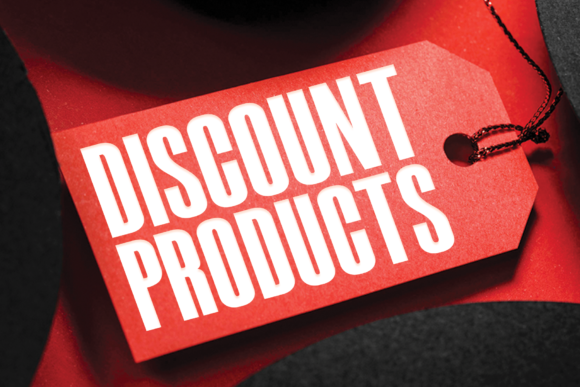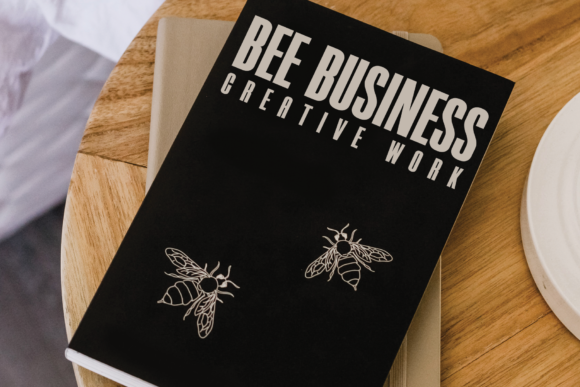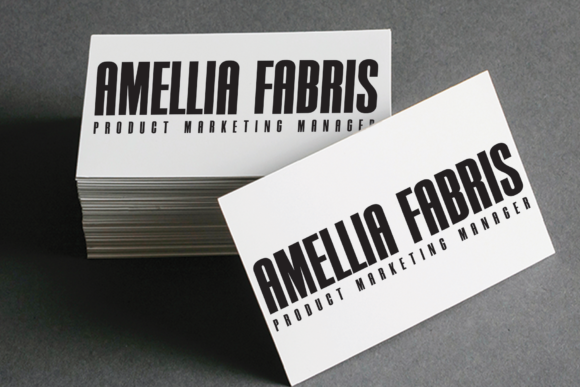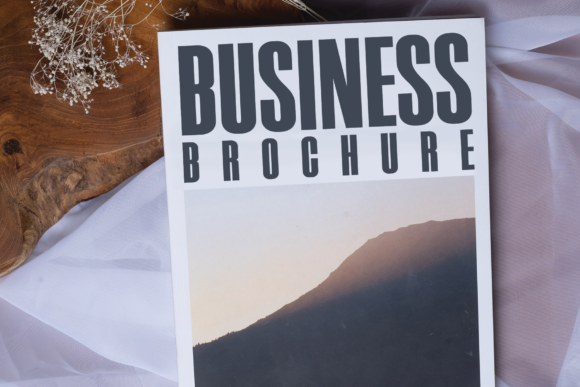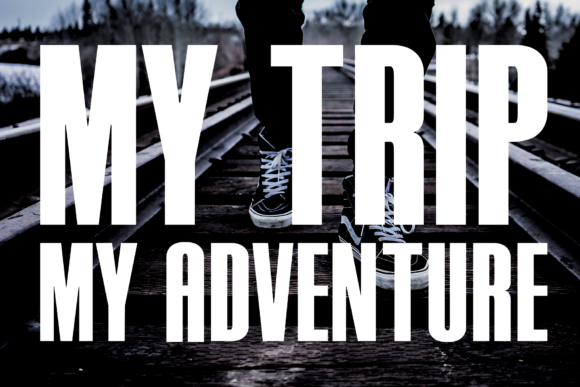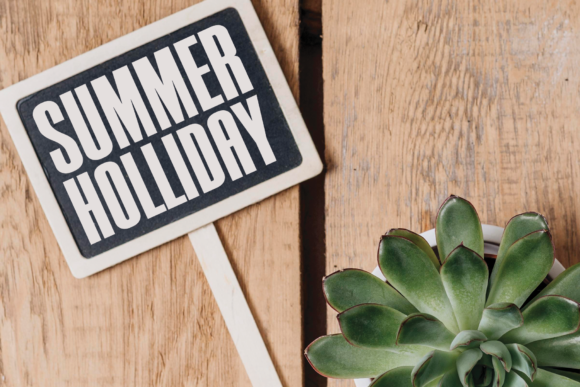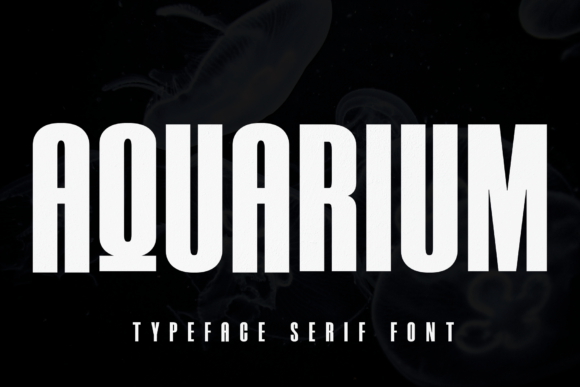
Aquarium Font: A Bold and Simple Display Font for Creative Projects
Aquarium Font is a stunning, bold, and simple display font that has been making waves in the design community. Its chunky lettering and natural aesthetic make it incredibly versatile, allowing it to match each of your creative ideas. Whether you’re a designer, crafter, or DIY enthusiast, Aquarium Font is sure to become a go-to choice for your next project.
What Makes Aquarium Font So Special?
Aquarium Font’s unique charm lies in its bold and chunky lettering style. The font’s natural, effortless look makes it perfect for a wide range of applications, from signage and posters to crafts and DIY projects. The font’s simplicity also ensures that it remains highly legible, even at larger sizes.
Key Features of Aquarium Font
- Bold and Chunky Lettering: Aquarium Font features bold, chunky letters that make a statement.
- Natural Aesthetic: The font’s natural look and feel make it perfect for crafty and DIY projects.
- Highly Versatile: Aquarium Font can be used for a wide range of applications, from signage and posters to crafts and DIY projects.
- Easy to Read: Despite its bold style, Aquarium Font remains highly legible, even at larger sizes.
Uses for Aquarium Font
Aquarium Font’s versatility makes it suitable for a wide range of creative projects. Here are some ideas to get you started:
- Signage and Posters: Use Aquarium Font to create eye-catching signs and posters for events, promotions, or advertising.
- Crafts and DIY Projects: Add a personal touch to your crafty projects, such as scrapbooking, card-making, or woodworking.
- Branding and Packaging: Use Aquarium Font to create bold and eye-catching branding and packaging for your products.
- Digital Art and Graphics: Incorporate Aquarium Font into your digital art and graphics, such as illustrations, animations, or social media graphics.
Tips for Using Aquarium Font
To get the most out of Aquarium Font, here are some tips to keep in mind:
- Experiment with Sizes: Don’t be afraid to experiment with different font sizes to find the perfect balance for your project.
- Pair with Other Fonts: Combine Aquarium Font with other fonts to create a unique and visually appealing contrast.
- Use in Combination with Images: Pair Aquarium Font with images or graphics to add an extra layer of depth and interest to your design.
Aquarium Font is a bold and simple display font that is sure to make a splash in your next creative project. Its chunky lettering and natural aesthetic make it incredibly versatile, while its legibility ensures that it remains easy to read. Whether you’re a designer, crafter, or DIY enthusiast, Aquarium Font is a must-have font that will help you bring your ideas to life.